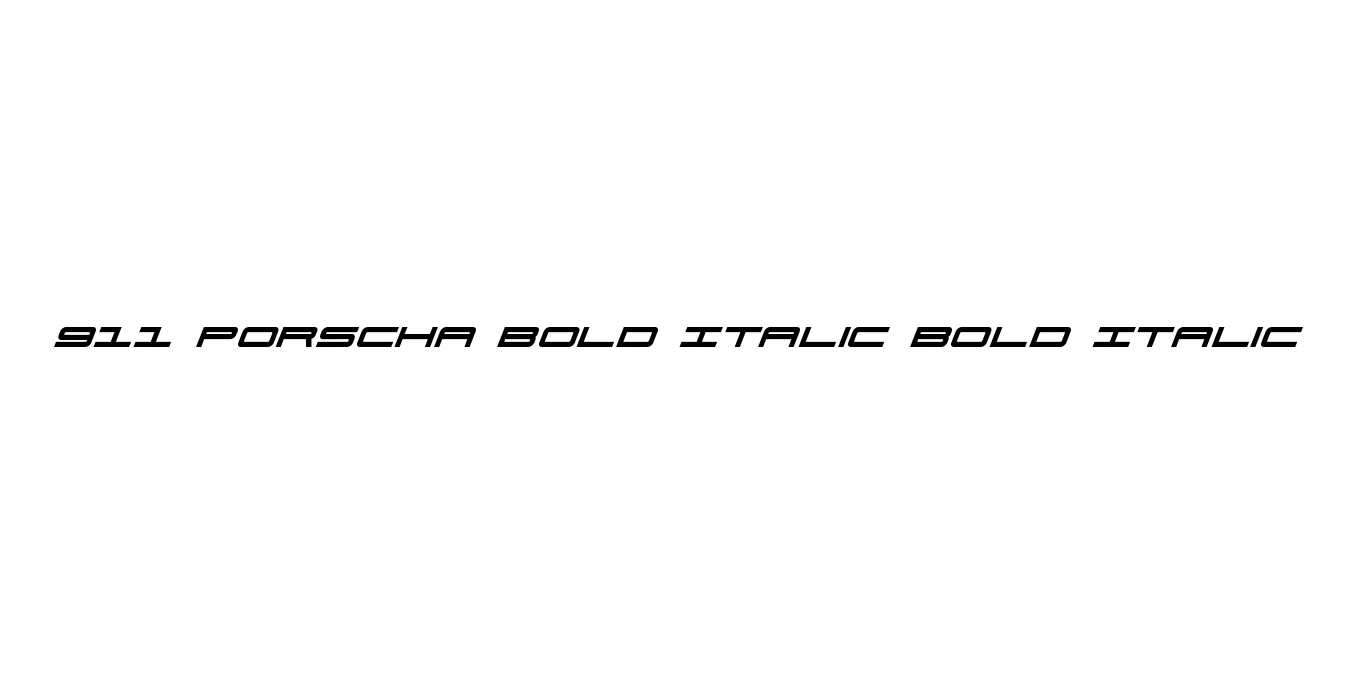
911 Porscha Bold Italic Bold Italic
Designed by Iconian Fonts (Dan Zadorozny)
| Font Name | 911 Porscha Bold Italic |
| Category | Techno / Wide Sans Serif |
| Designer | Iconian Fonts (Dan Zadorozny) |
| Similar Fonts | Eurostile, Microgramma, Porsche Next |
911 Porscha Bold Italic is a high-performance, wide-set sans-serif typeface that draws its primary inspiration from the iconic lettering associated with the Porsche automotive brand. Designed to convey speed, precision, and modern luxury, this font features a strong horizontal emphasis and aggressive italicization that makes it stand out in high-impact visual layouts.
Developed by Iconian Fonts, this typeface has become a staple for designers looking to evoke a sense of futuristic technology or automotive excellence. Its robust character shapes and clean lines ensure legibility even at large scales, making it an excellent choice for branding projects that require a bold, authoritative aesthetic.
911 Porscha Bold Italic Best Uses
Perfect for logos and identity systems for car-related businesses and performance shops.
Excellent for racing posters, jerseys, and high-speed event promotions.
Ideal for futuristic headlines and wide-format editorial designs in tech or gaming magazines.